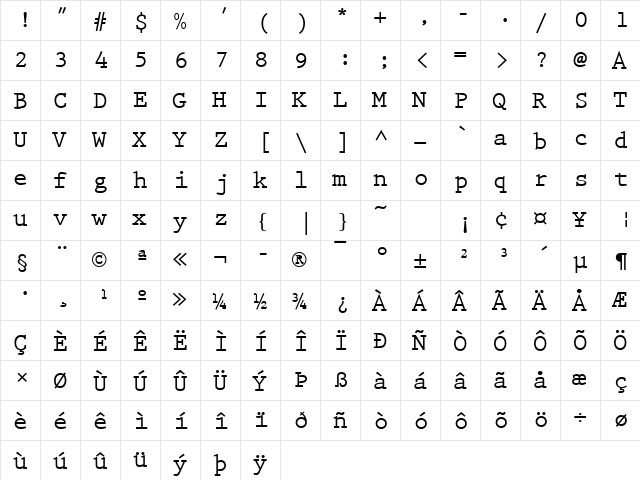
PrestigeEliM Bold
PrestigeEliM offers clean, dependable letterforms without strong stylistic allegiance, making it a practical choice for designers who need flexibility. The heavy weight commands attention and anchors typographic hierarchies.